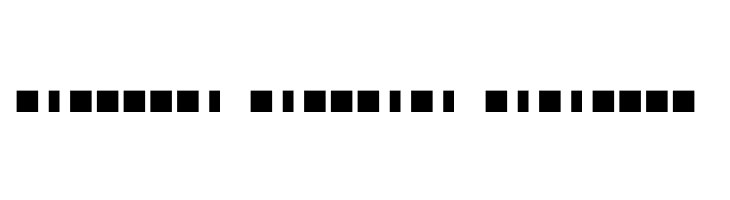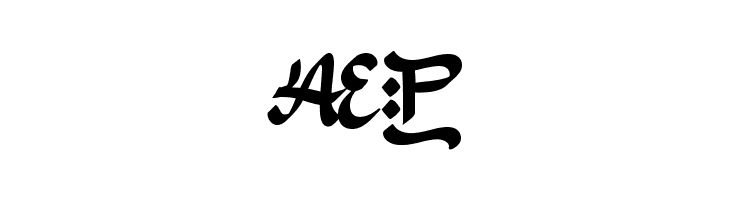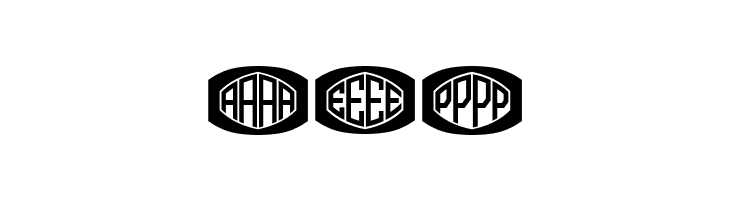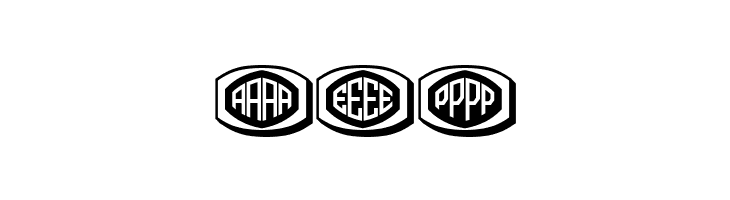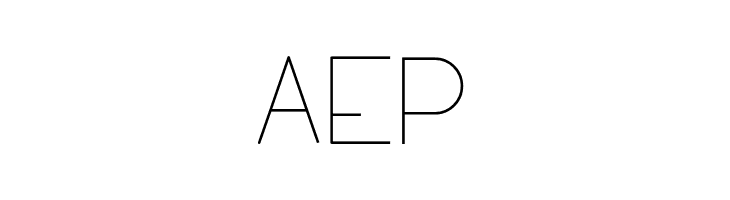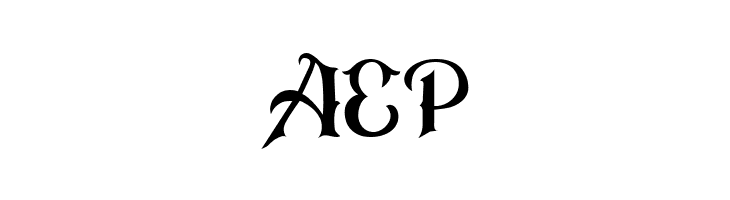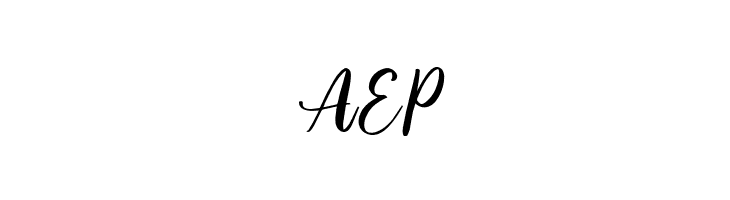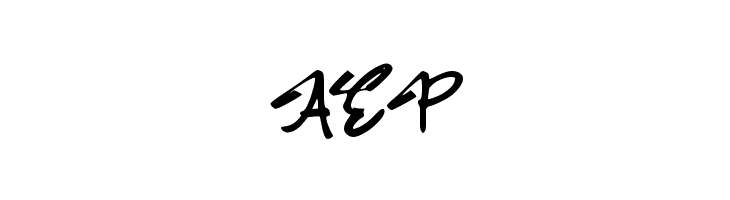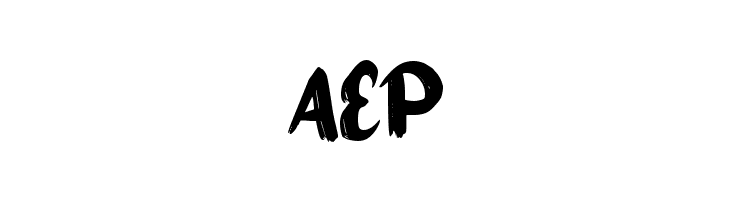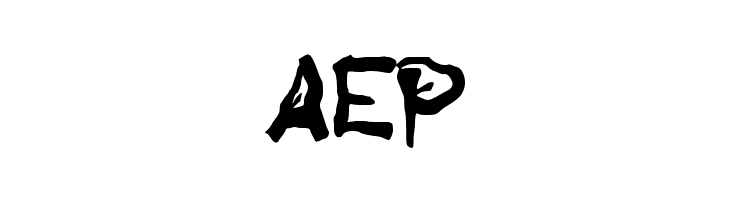
• buick rounded
A modern, geometric font with rounded edges and a futuristic style.
• BUIH KOPI
A bold, hand-drawn font with an expressive, graffiti-like style.
• BUILDER
• Buitenzorg
A bold, dynamic handwritten font with a playful yet assertive style.
• Buka Loker
A lively, handwritten script font with a modern and expressive style.
• BukanBinary Mono
A modern, monospaced font with a digital dot pattern.
• BukanBinary Mono Too
A decorative font using binary-like patterns for a digital aesthetic.
• BukanMorse Too
A Morse code-inspired font using dots and dashes for each character.
• Bukanyah
A casual, handwritten font with fluid strokes and dynamic line thickness.
• Bukhari Script
A bold, flowing script font with interconnected letters and a strong visual impact.
• BukhariScript Alternates
A bold, flowing script font with interconnected characters and a modern touch.
• BukhariScript-Regular
A bold, flowing script font with interconnected characters and a cursive style.
• Bulaa-DaFont
A playful, rounded, hand-drawn font with a casual and friendly aesthetic.
• Bulak Banteng
A playful, hand-drawn font with a bold, cartoonish style.
• Bulan Rajab
A bold, blackletter-inspired font with ornate details and high contrast.
• Bulan Rajab